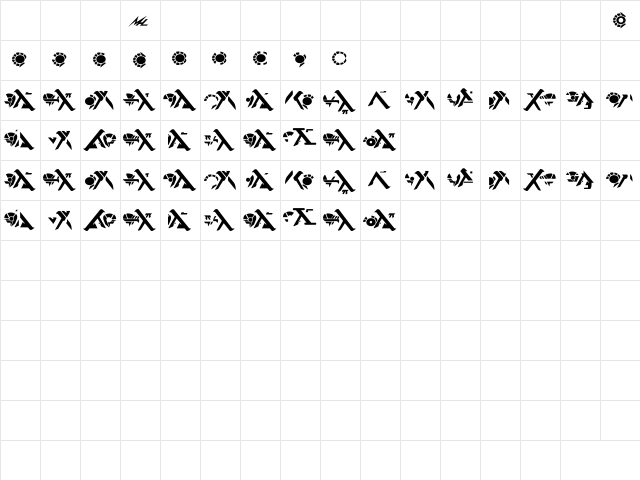
Lazuli Bold
Design Context for Lazuli Typeface
Lazuli is a composed and adaptable typeface that performs quietly and consistently across a wide range of design contexts. Its bold stroke weight gives it real presence on the page.